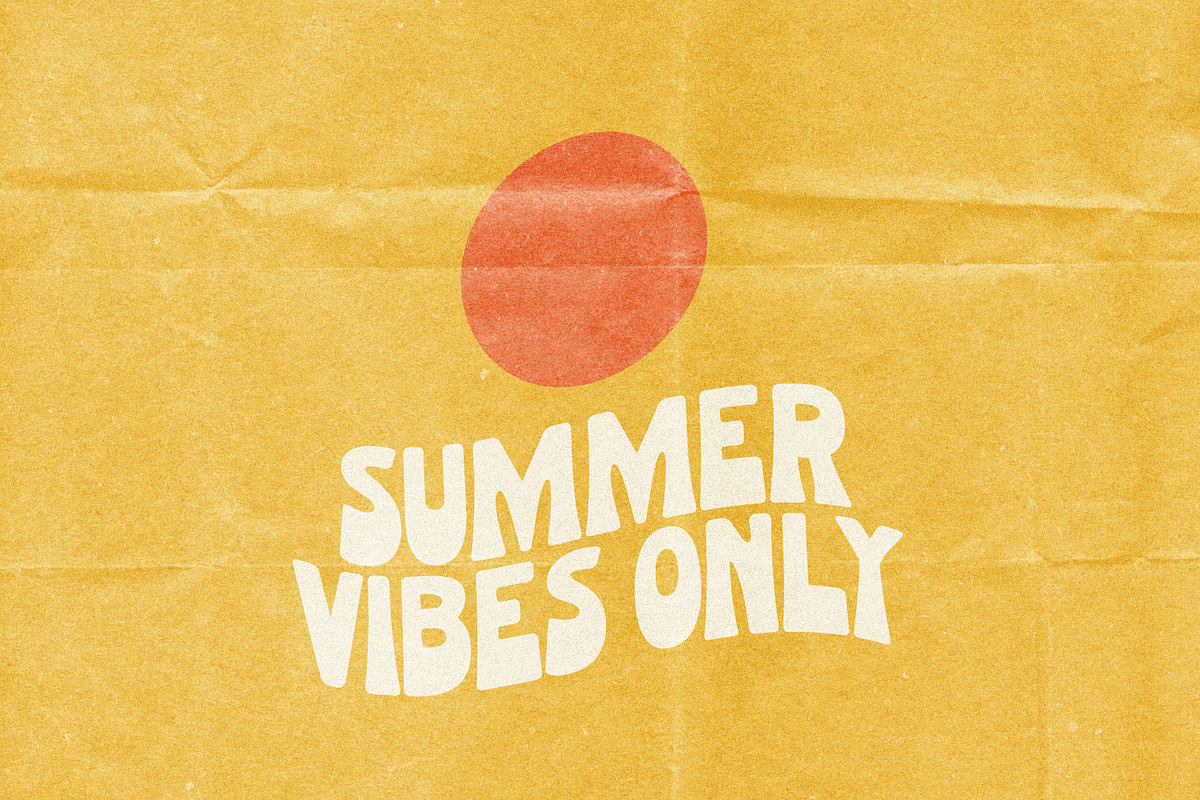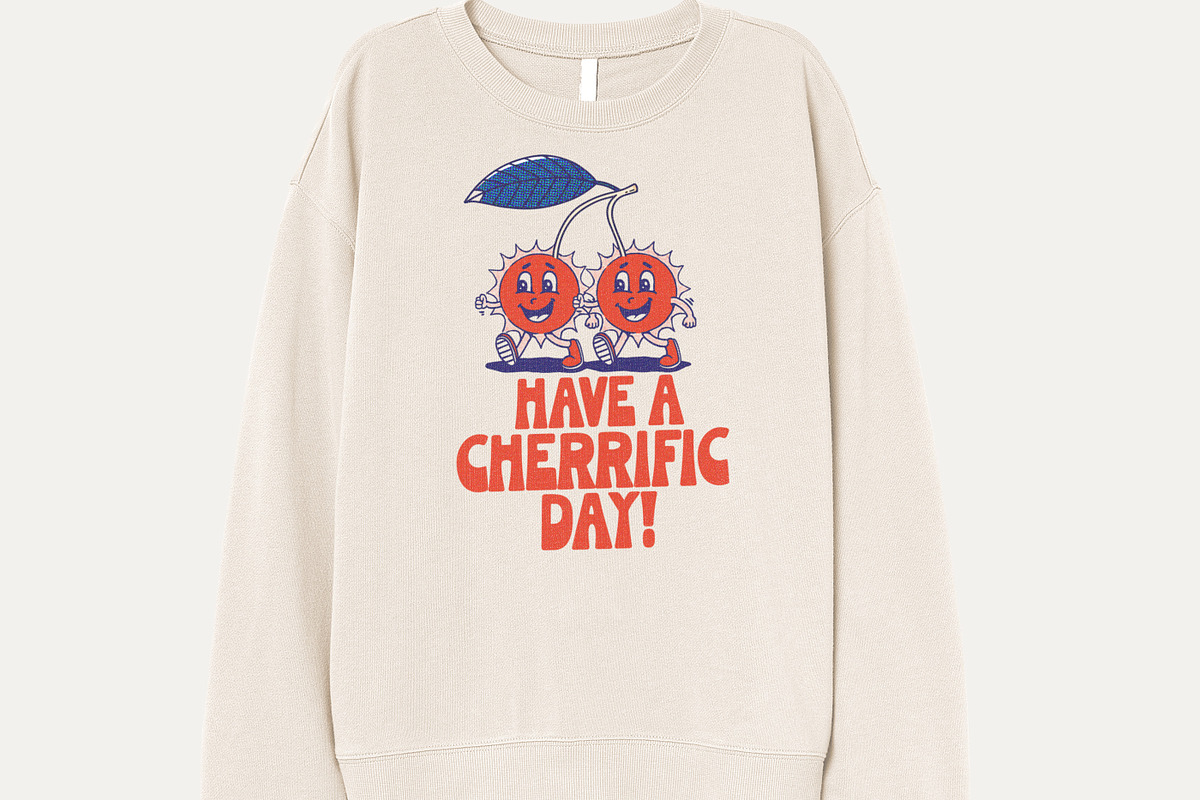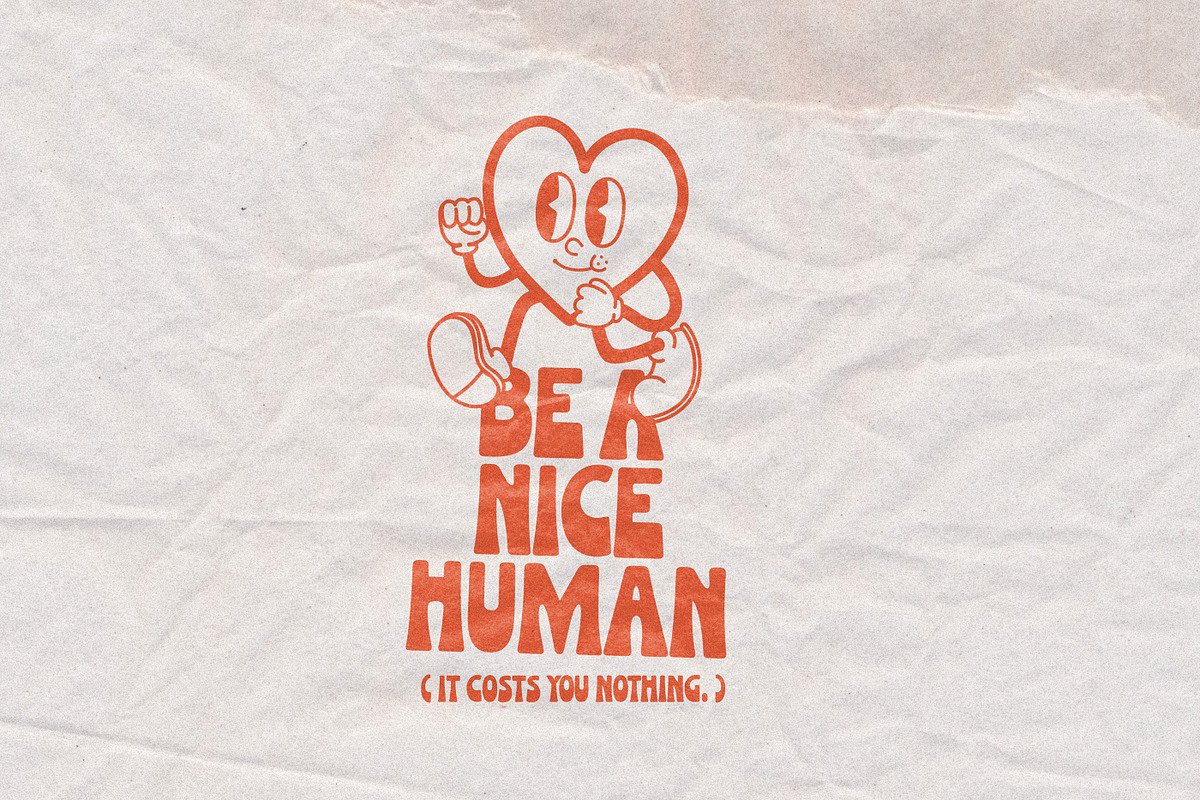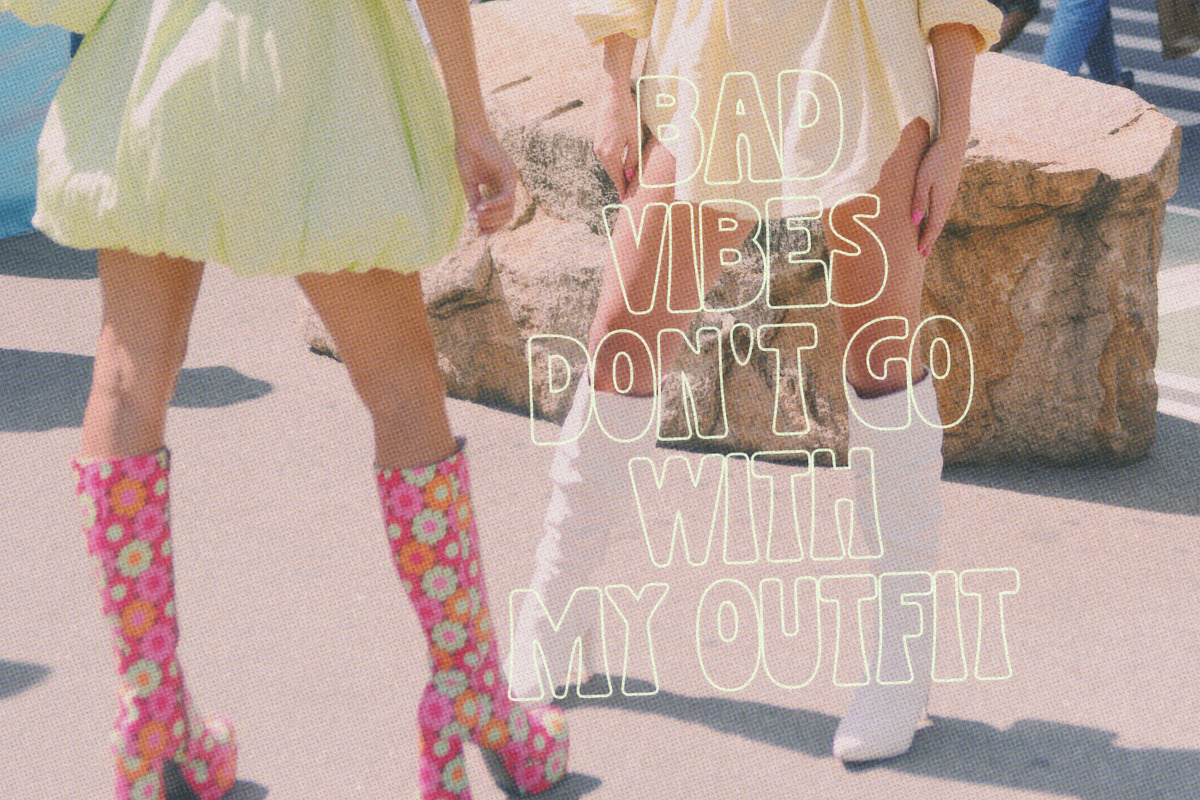
Superfreak is a retro-inspired font with a groovy, all-caps style reminiscent of the 1970s. It comes in two versions: Regular and Outline. Language support includes English, Danish, French, German, Spanish, Swedish and Swiss German.